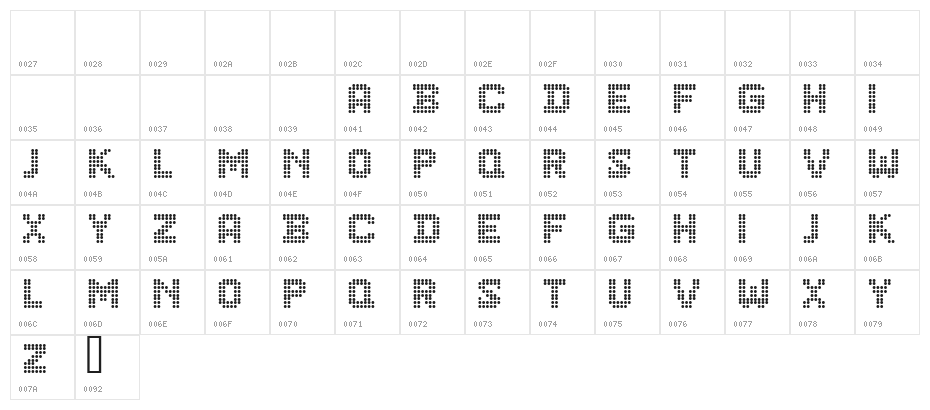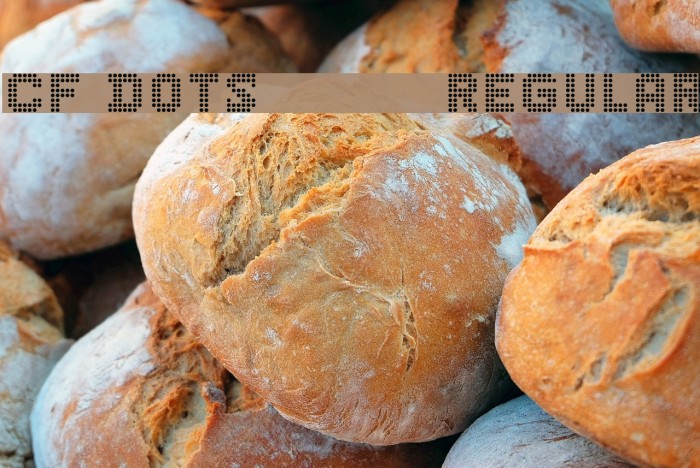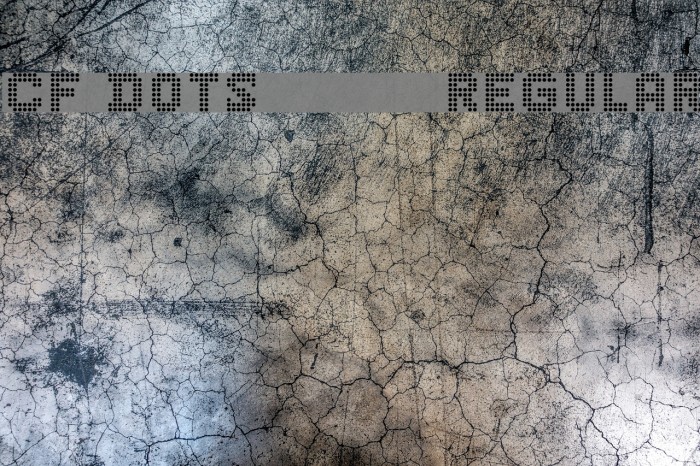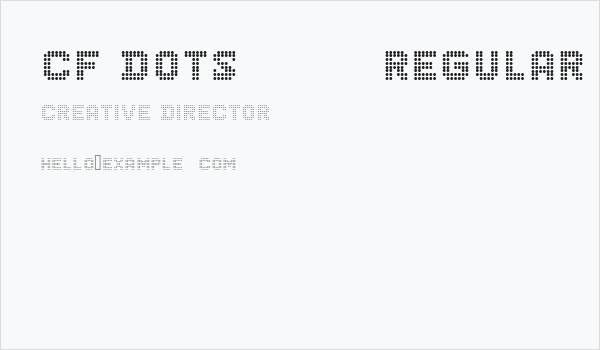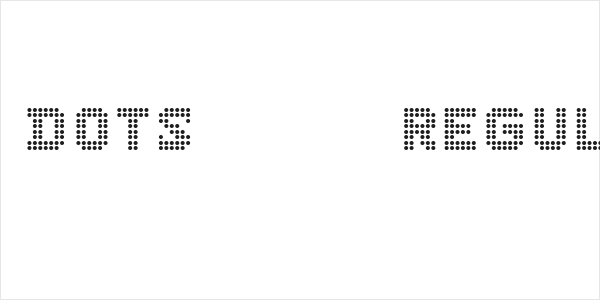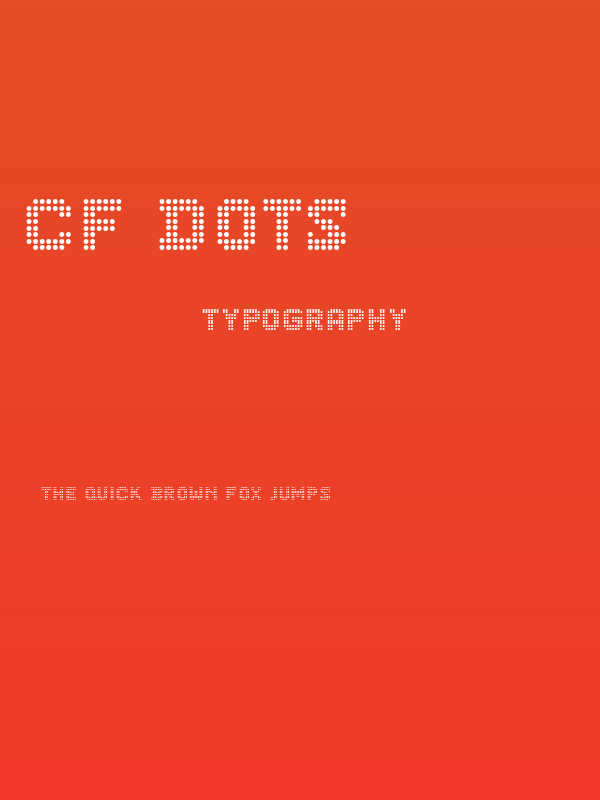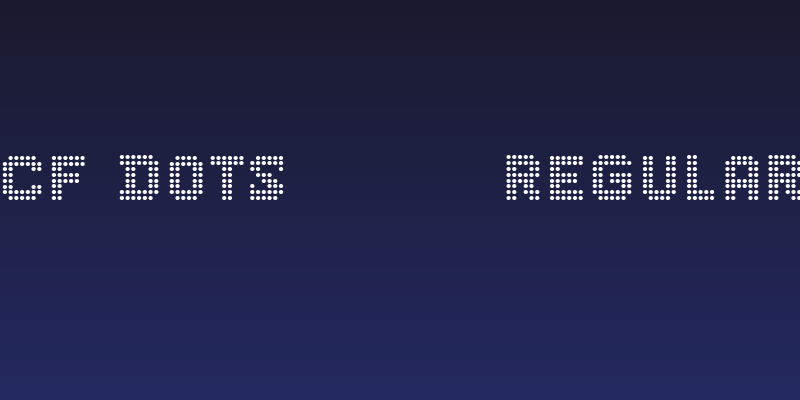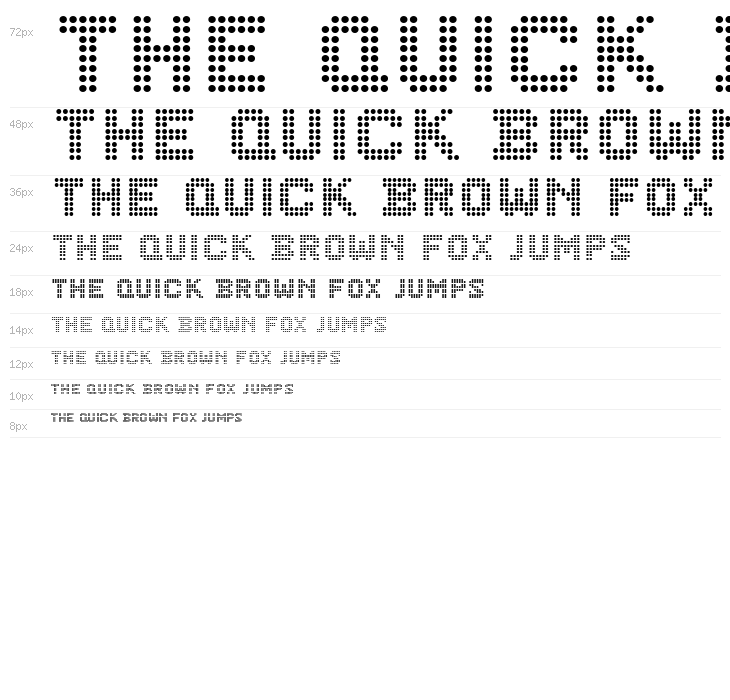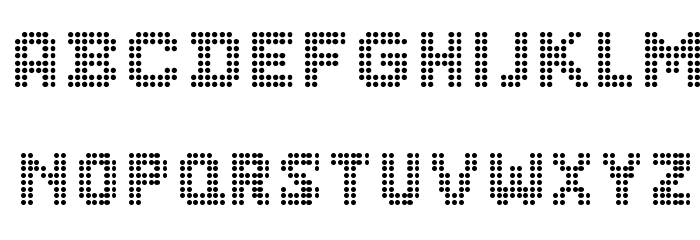
CF Dots 521 Regular Font
CF Dots 521 Regular Description
This font features a unique dot matrix style, where each character is composed of a grid of small, evenly spaced dots. The design is geometric and structured, giving it a digital or retro-tech appearance. The characters are uniform in height and width, maintaining a consistent and balanced look across both uppercase and lowercase letters. The font's dotted pattern creates a visually interesting texture that stands out, making it suitable for creative and modern design projects. Its distinct style is reminiscent of early digital displays, adding a nostalgic yet contemporary touch to any text.
| Proposed Projects | Ideal for digital-themed designs, tech branding, retro posters, and creative displays. |